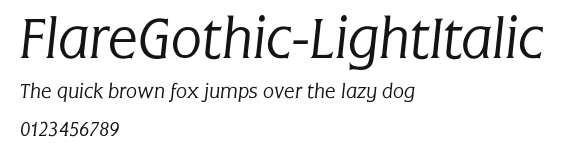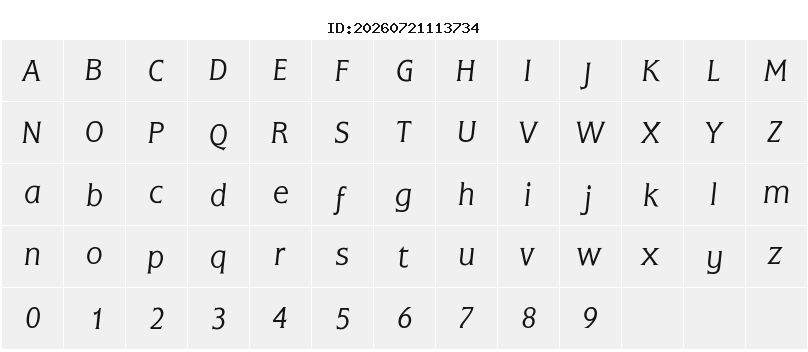
FlareGothic-LightItalic Preview
About FlareGothic-LightItalic.ttf
FlareGothic-LightItalic.ttf is a modern, elegant sans-serif font designed for ultimate readability and visual harmony. Perfect for branding, headlines, web design, and print materials.